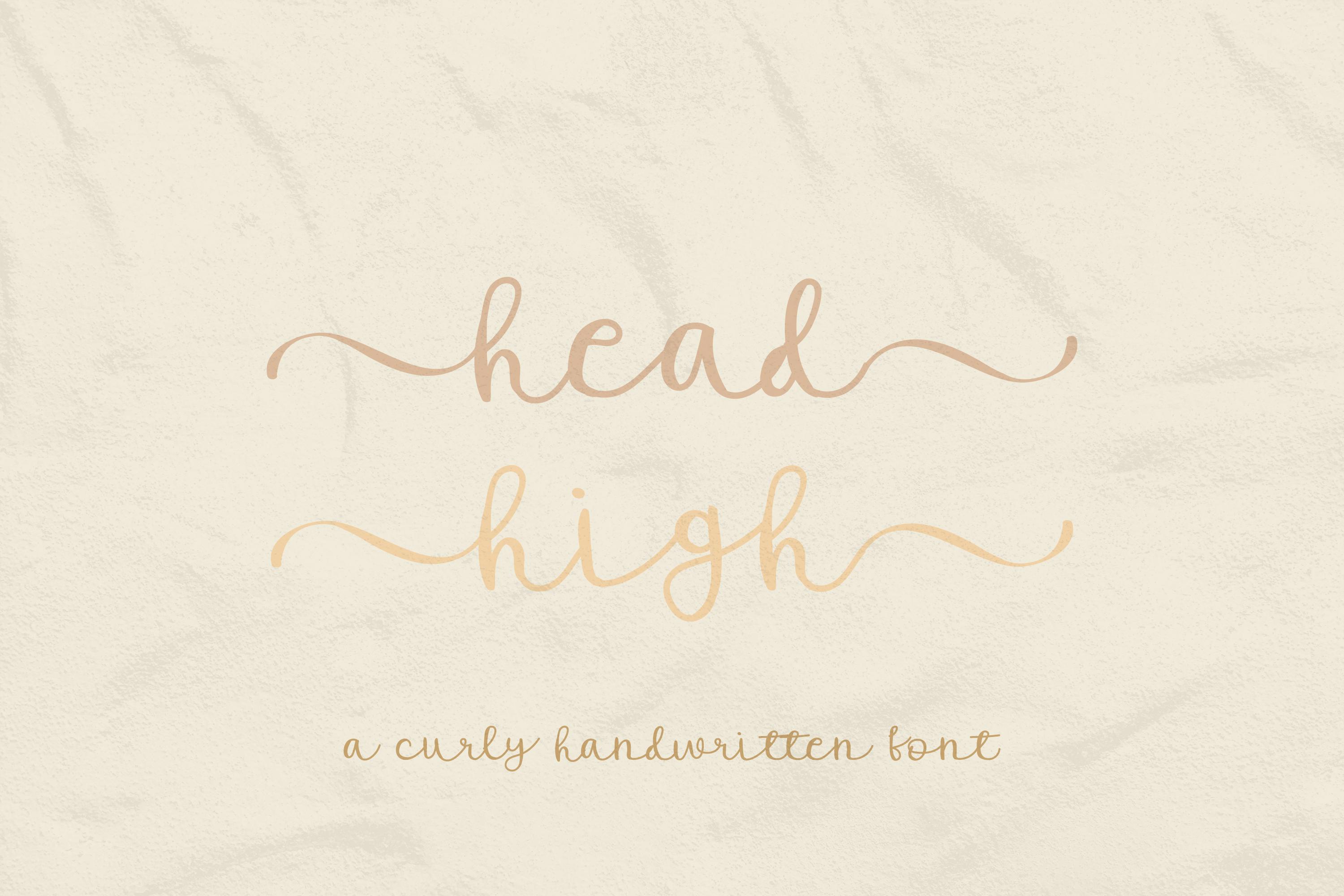
Head High Font Description
Head High is a wavy and beautiful script font. Get inspired by its incredibly smooth feel, and use it to turn any design project into a standout! Head High is PUA encoded which means you can access all of the glyphs and swashes with ease!